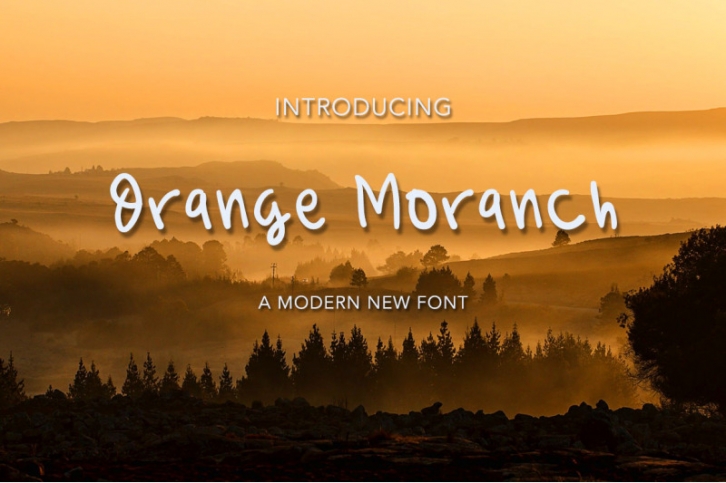
Orange Moranch is a cute and casual display font. It will look outstanding in any context, whether you’re looking for fonts for Instagram or calligraphy scripts for DIY projects, Orange Moranch will turn any creative idea into a true piece of art!